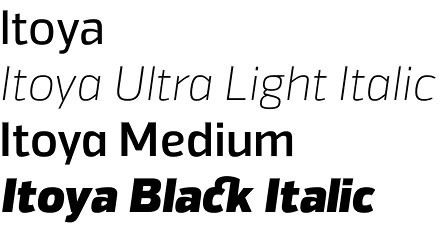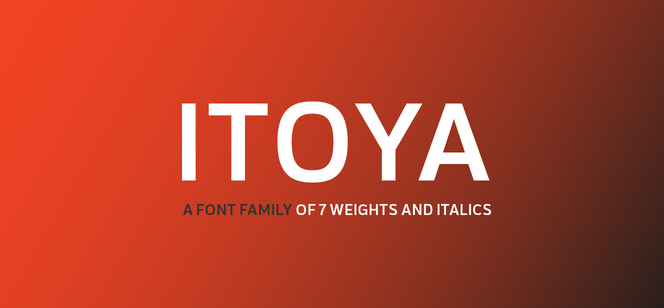
Itoya
Itoya is a modern sans serif typeface that is created under the influence of both Japanese and Western philosophies and ideologies. It is a very interesting typeface that combines firstly the practical and precise approach of the Western civilization with the more expression orientated Japanese culture and, on the other hand, answers all the needs of the very dynamic contemporary age while at the same time hinting to the more spiritual and ethic traditions. Itoya font offers to the users geometric humanist appearance, very high legibility and great functionality that would make it work perfectly in posters, web applications, graphic novels, product design, fashion related items and many more.
Itoya font family comes in seven weights – from Ultra Light to Black with their respective Italics. Just like the famous Japanese seven samurais from the iconic Akira Kurosawa film they are quite different but, when combined, achieve marvelous results. Those weights consist of more than 600 characters each. A lot of OpenType features and extras are provided too like alternative lowercase letters, variations of numerals, manually edited kerning and ligatures.
Itoya font family is designed by the very prolific and successful British designer Jonathan Hill and is released by his The Northern Block type foundry. His works are among the most distinctive and well known on the modern market and include fonts like: Schar, Loew, Bitner, Gunar, Nauman.